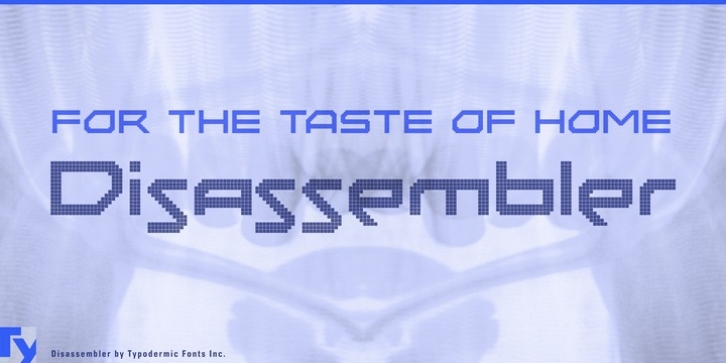
Disassembler downloadDesigner: Ray Larabie
Publisher: Typodermic
Disassembler is a simulated bitmap font available with various effects. Kerning is restricted to full pixel increments to give it that authentic pixel font look.